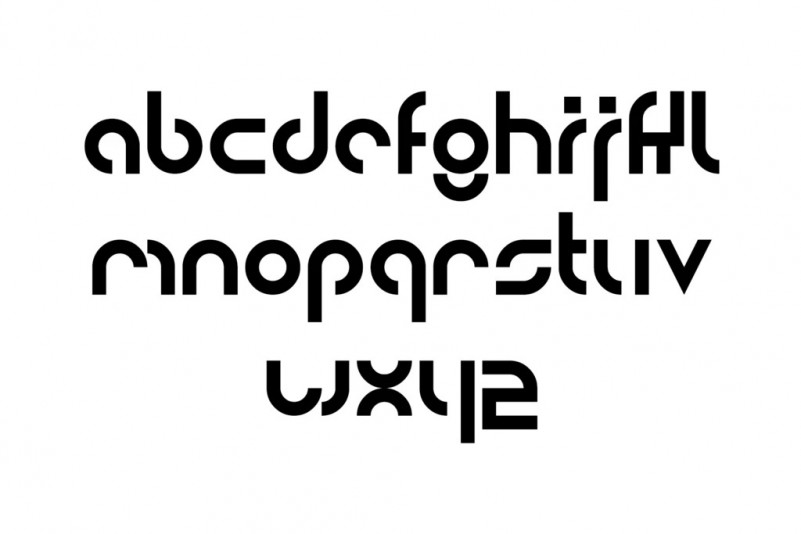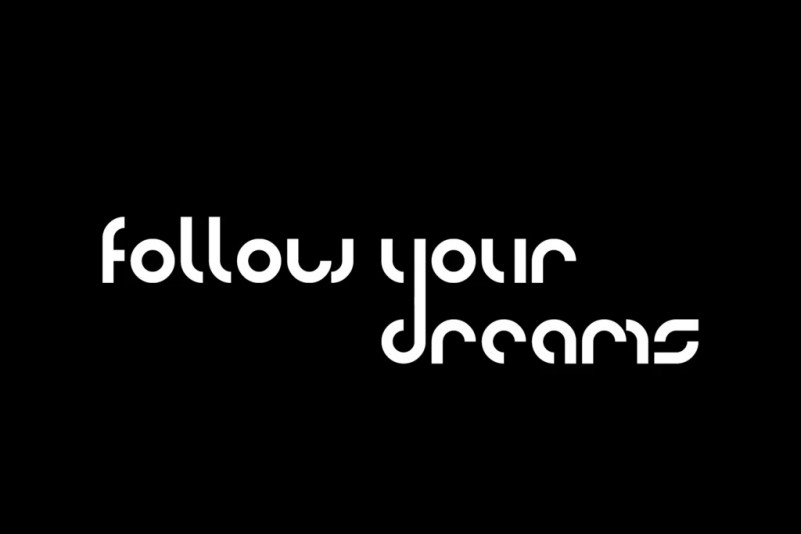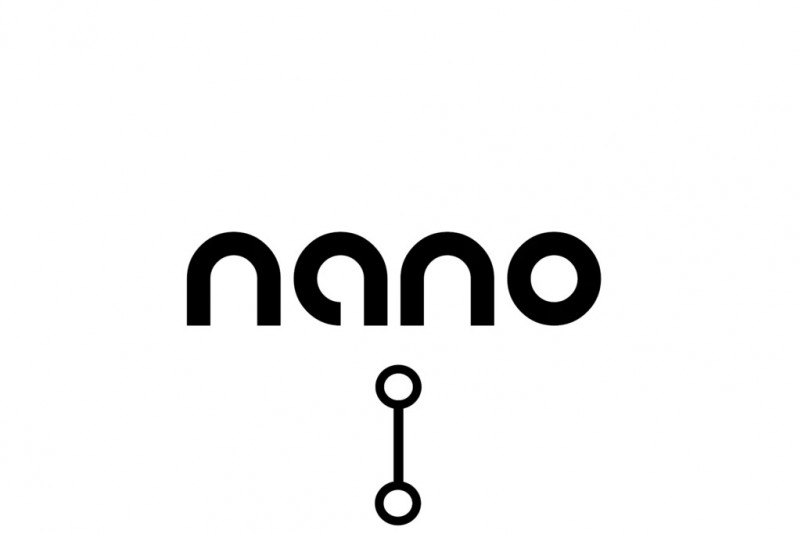
Nano Display Font
This is a fresh, geometric, sans serif font from Harrison Luke. The geometric, near-monoline construction lends a classic durability, tempered by softened edges and vibrant shapes. This font includes ultra modern minimalist letterforms which make it perfect for modern branding & logos.